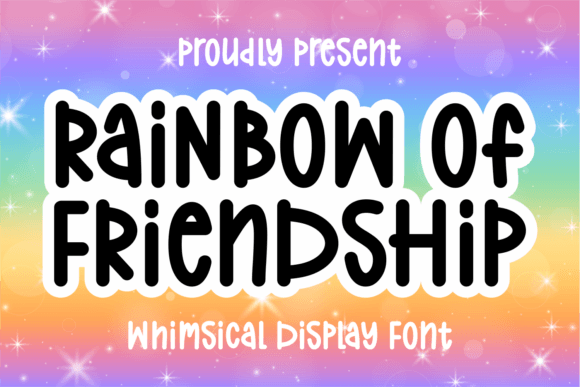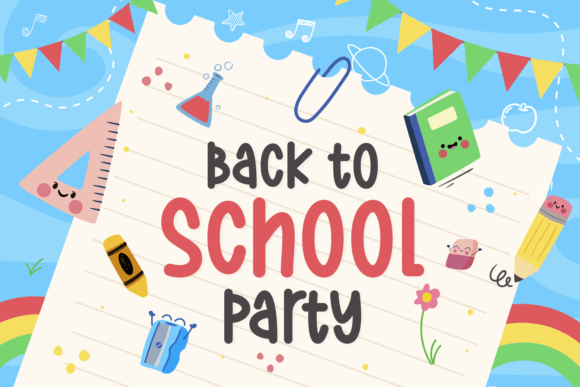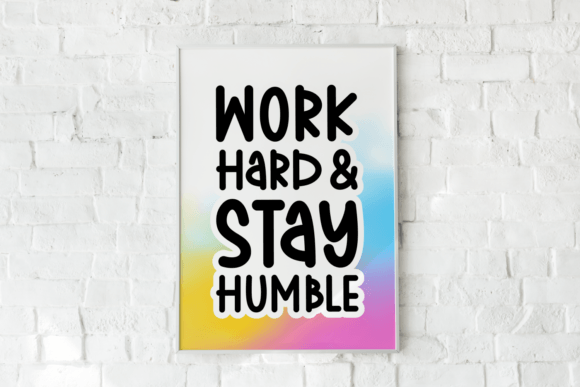
Rainbow of Friendship Font
Introducing “Rainbow of Friendship”, an authentically enchanting Display Font. It effortlessly exudes a whimsical charm, infusing joy and fun wherever used. This impressive font merrily sits on kids’ t-shirts, adding a playful touch to their apparel. With multilingual support, it extends its warmth beyond barriers, gracefully accommodating Eastern European accents. Clean and vibrant, “Rainbow of Friendship” is a winning choice for designing cards, magazines, and greeting cards. It breathes life into quotes, elevating brand designs with its unique flair. Be it on product packaging, invitations, labels, or posters, this font accentuates the content with charisma. Further, as a logotype, it allows brands to step into the limelight with ease. And if you are looking for a seasonal or trendy font, “Rainbow of Friendship” never lacks behind. Bring out the authenticity and joyful spirit of your designs with this standout font!